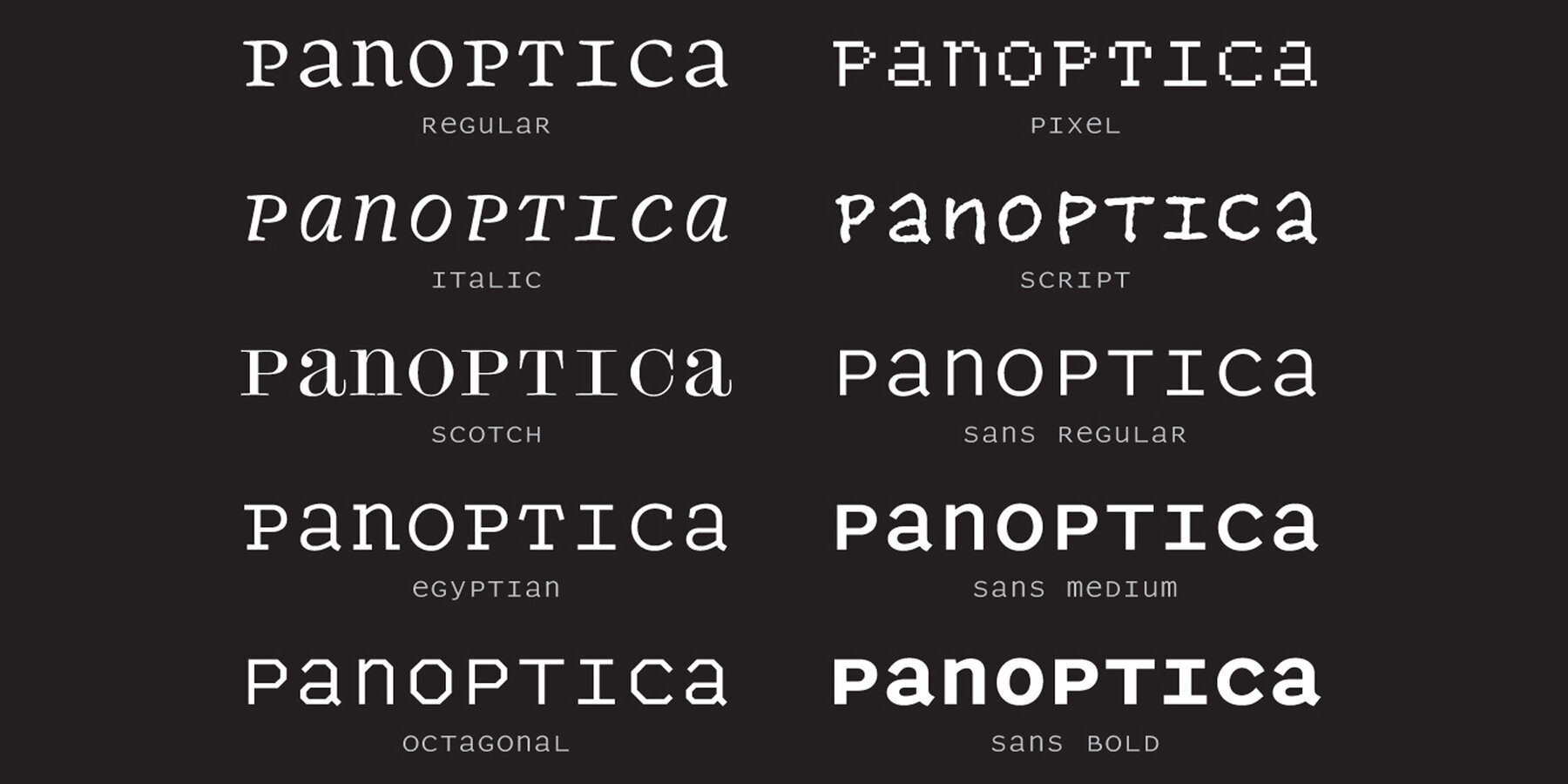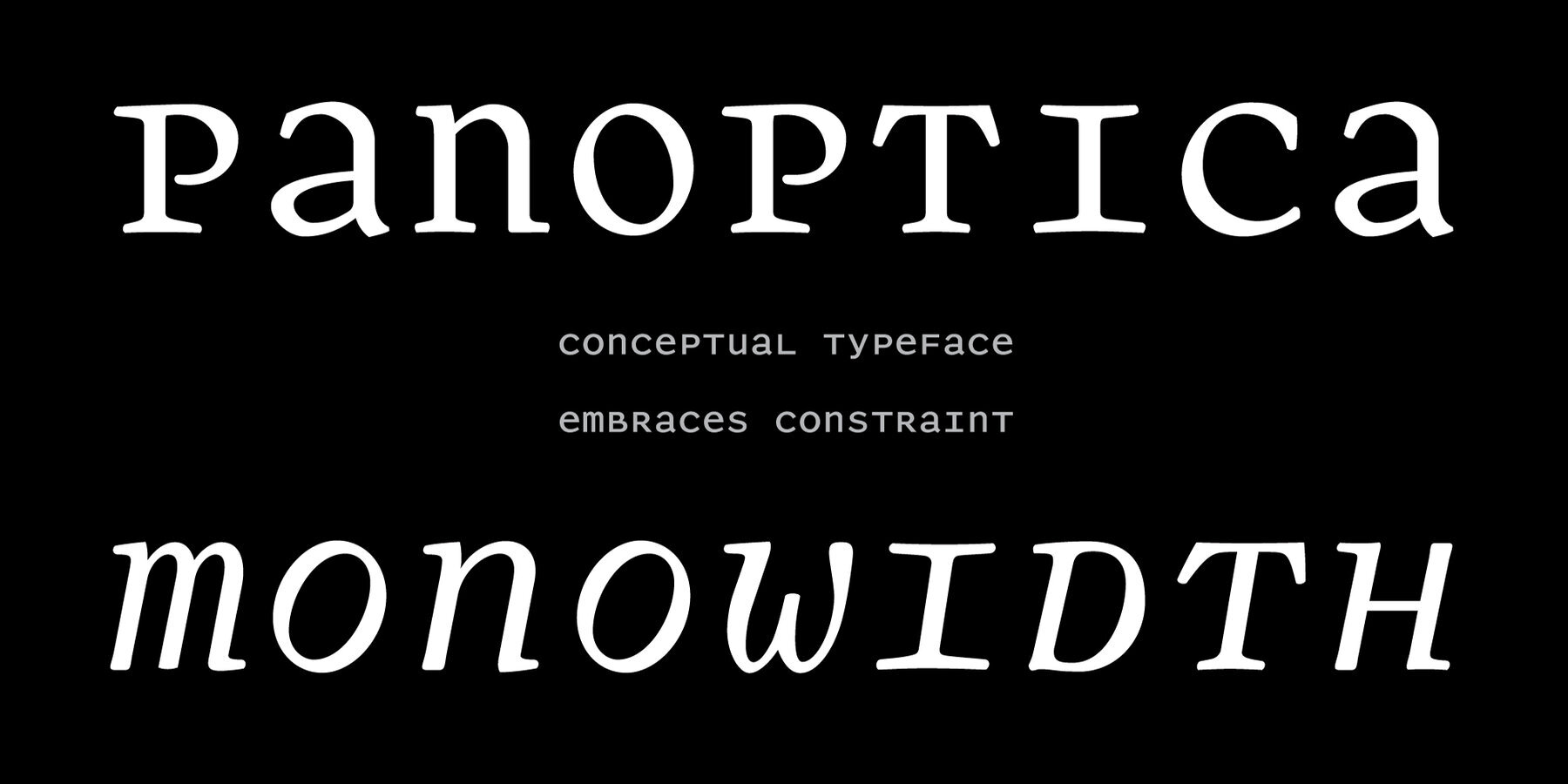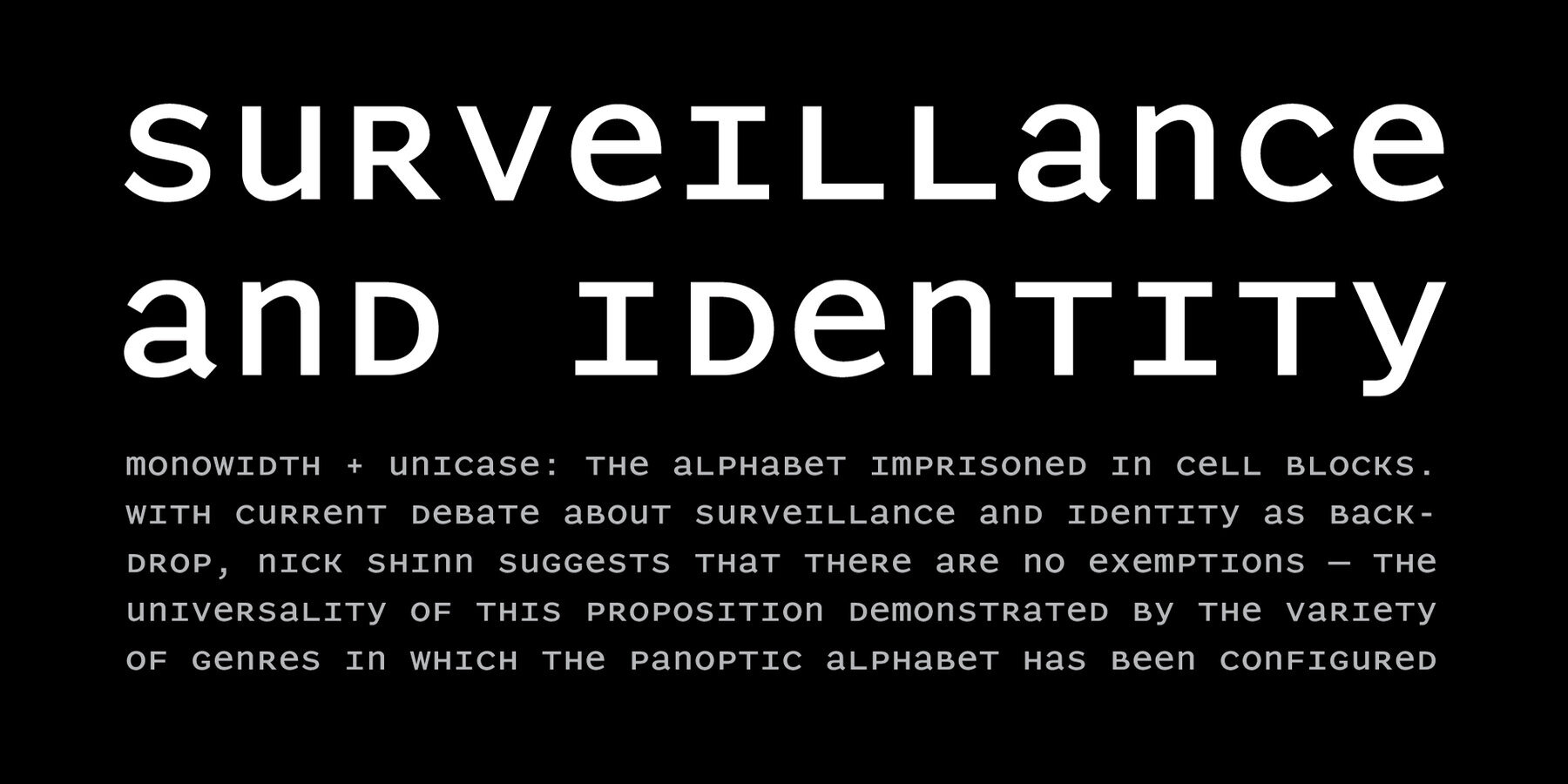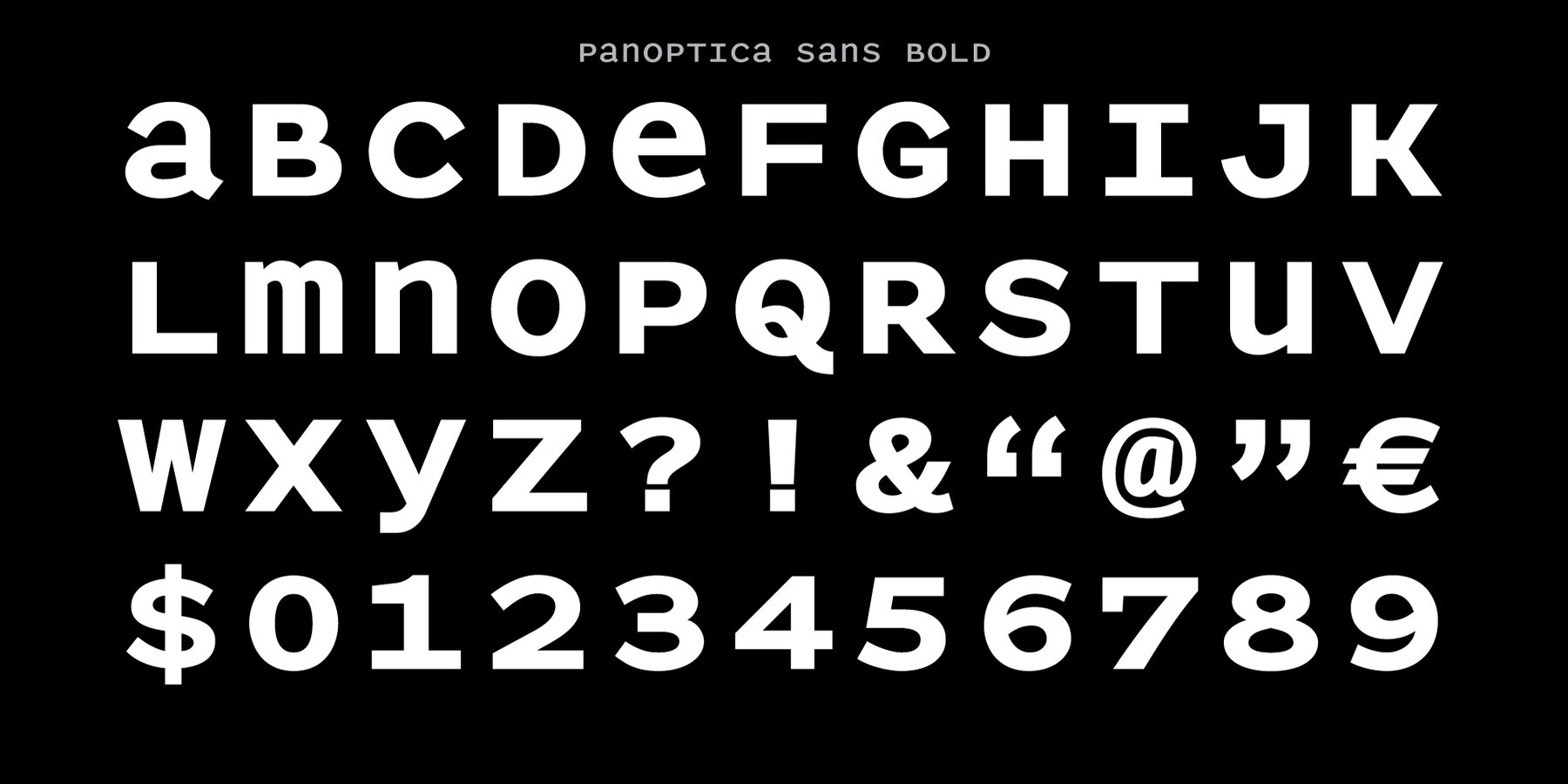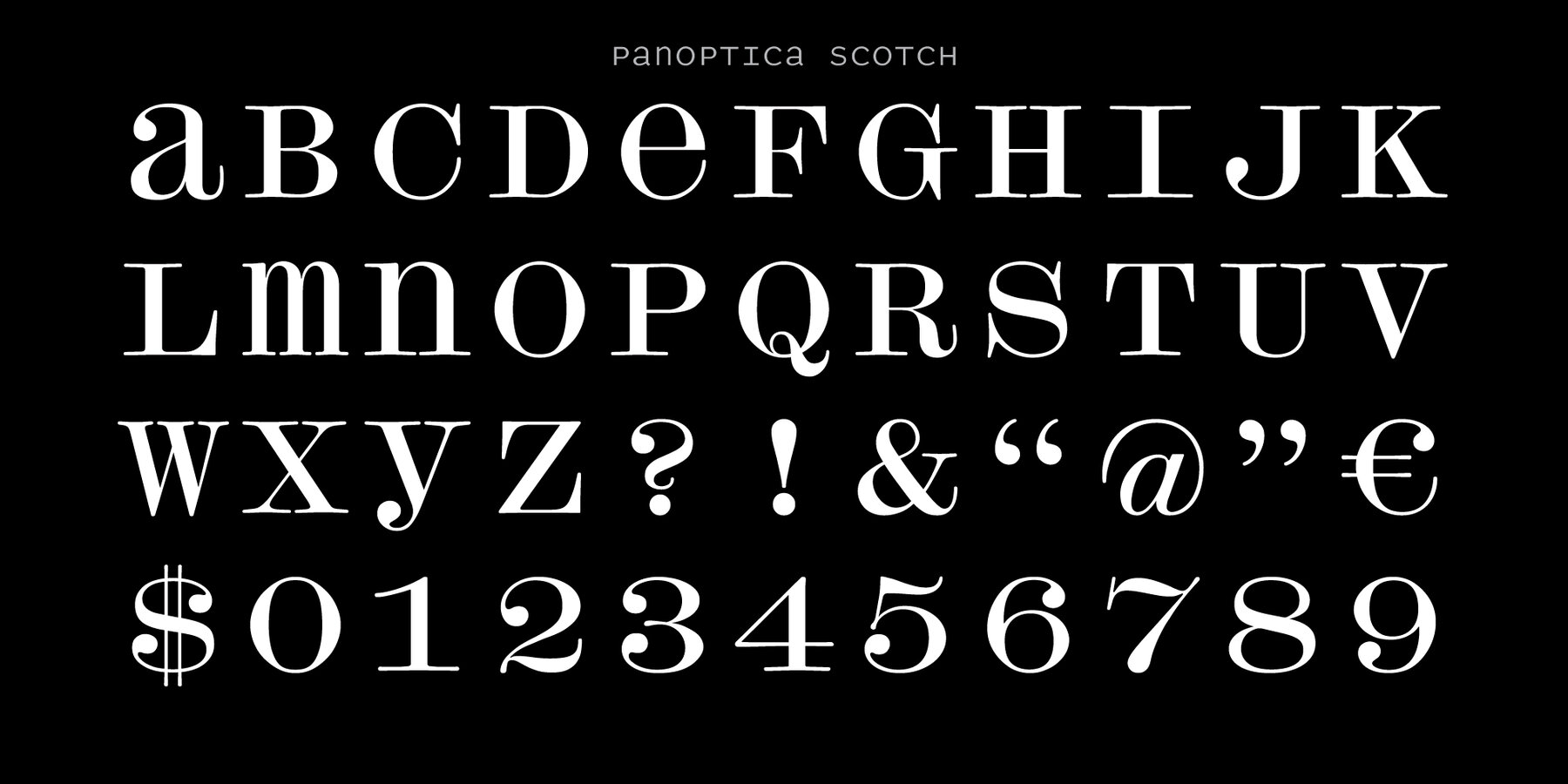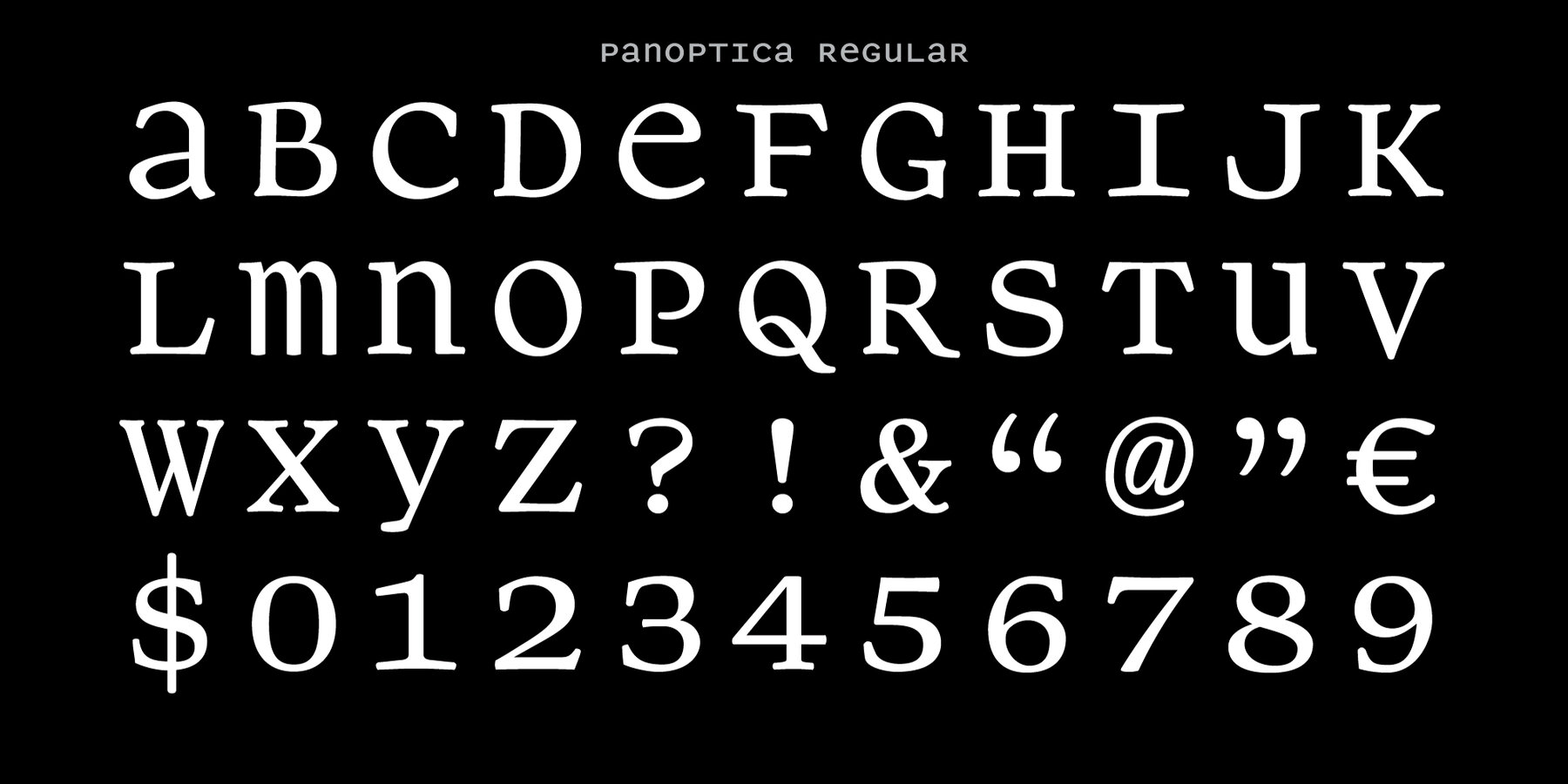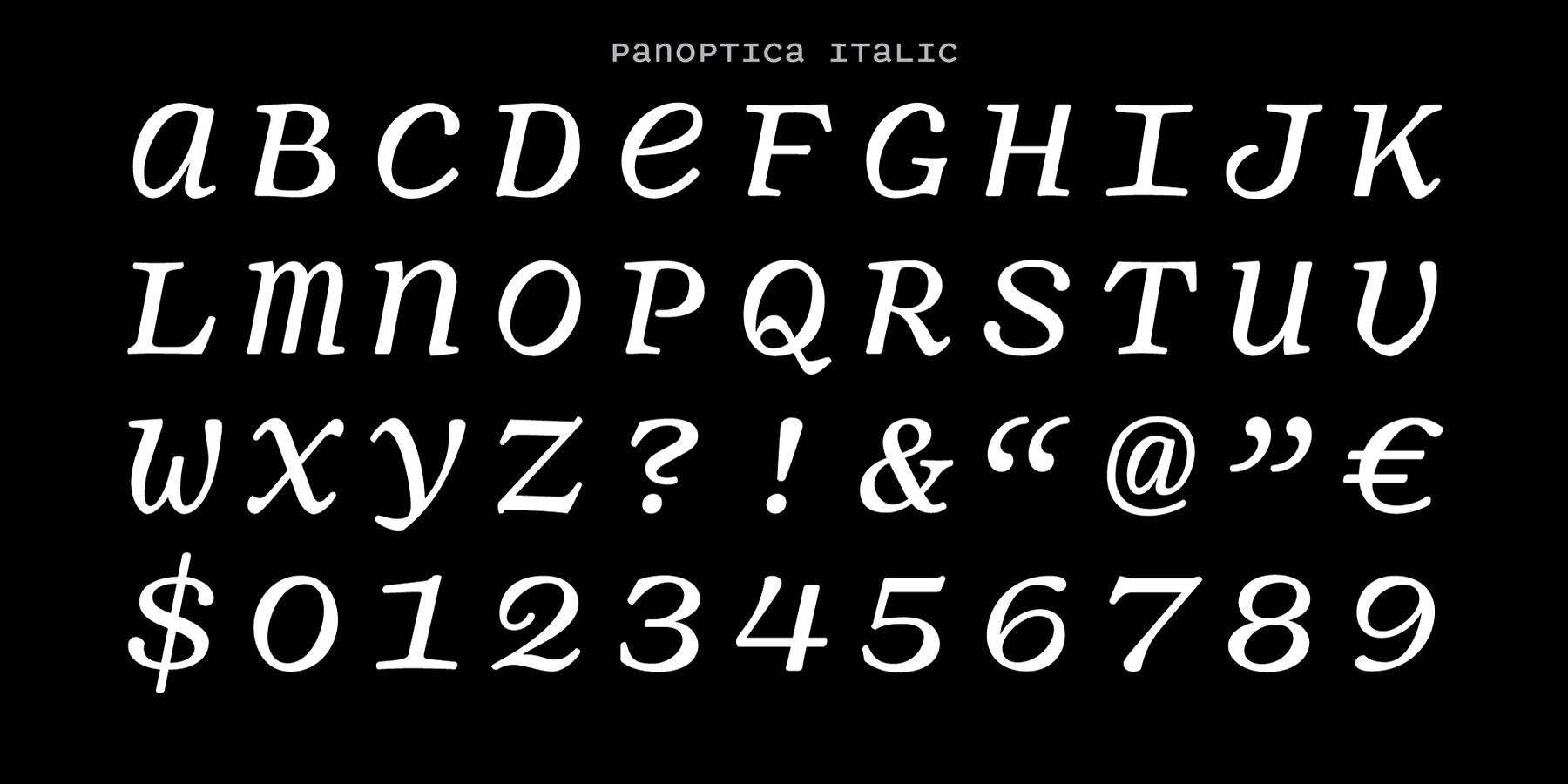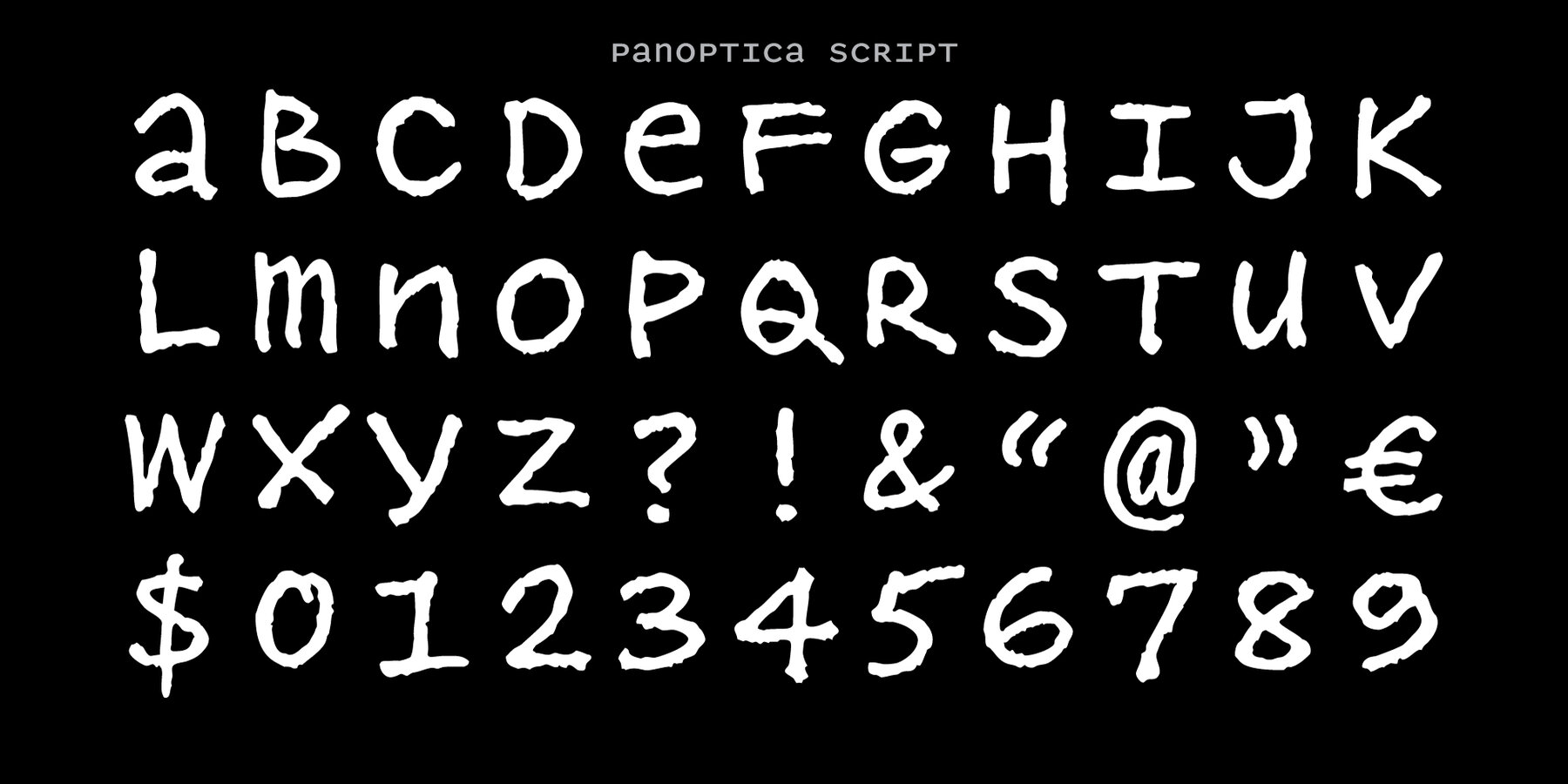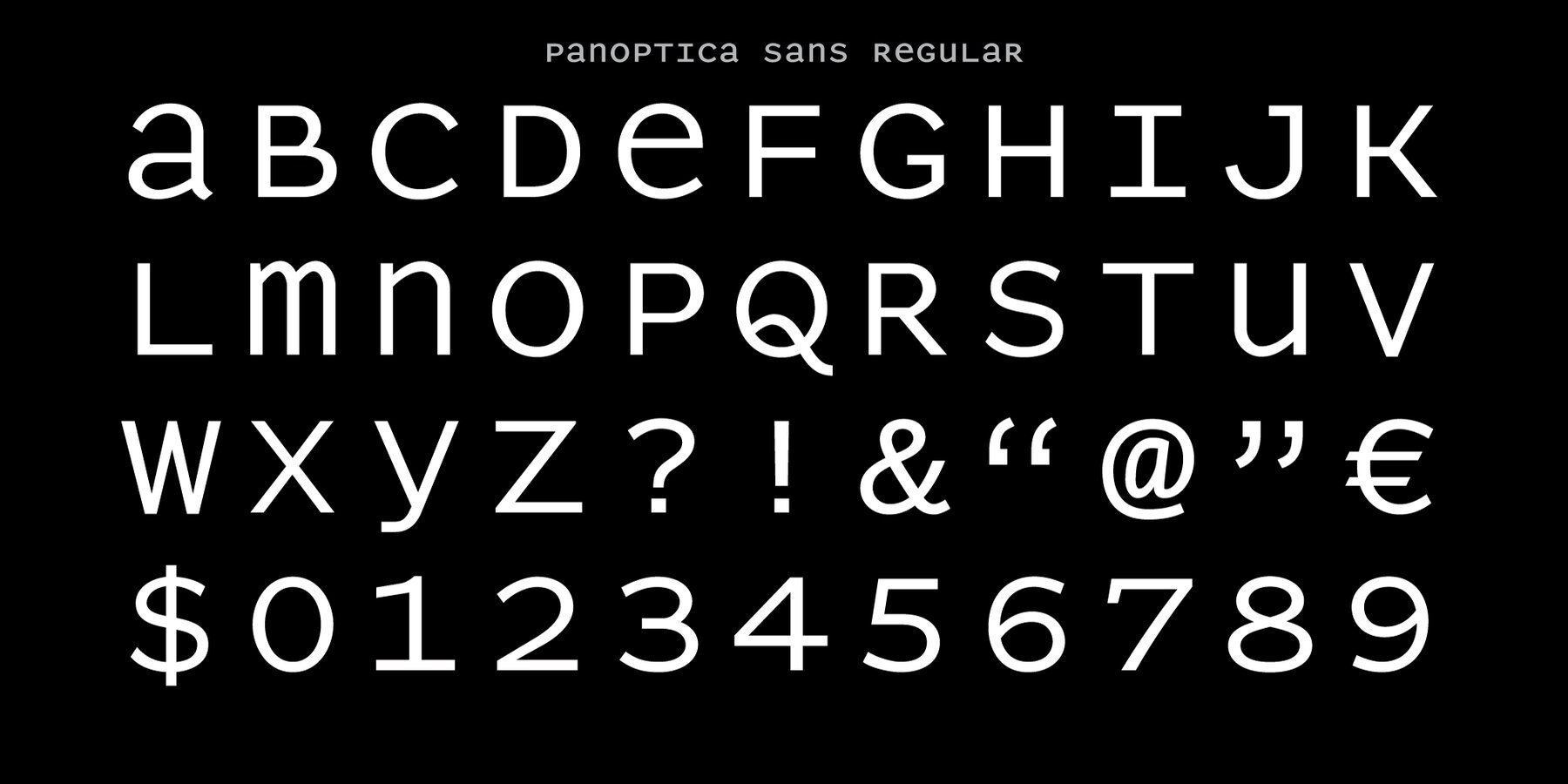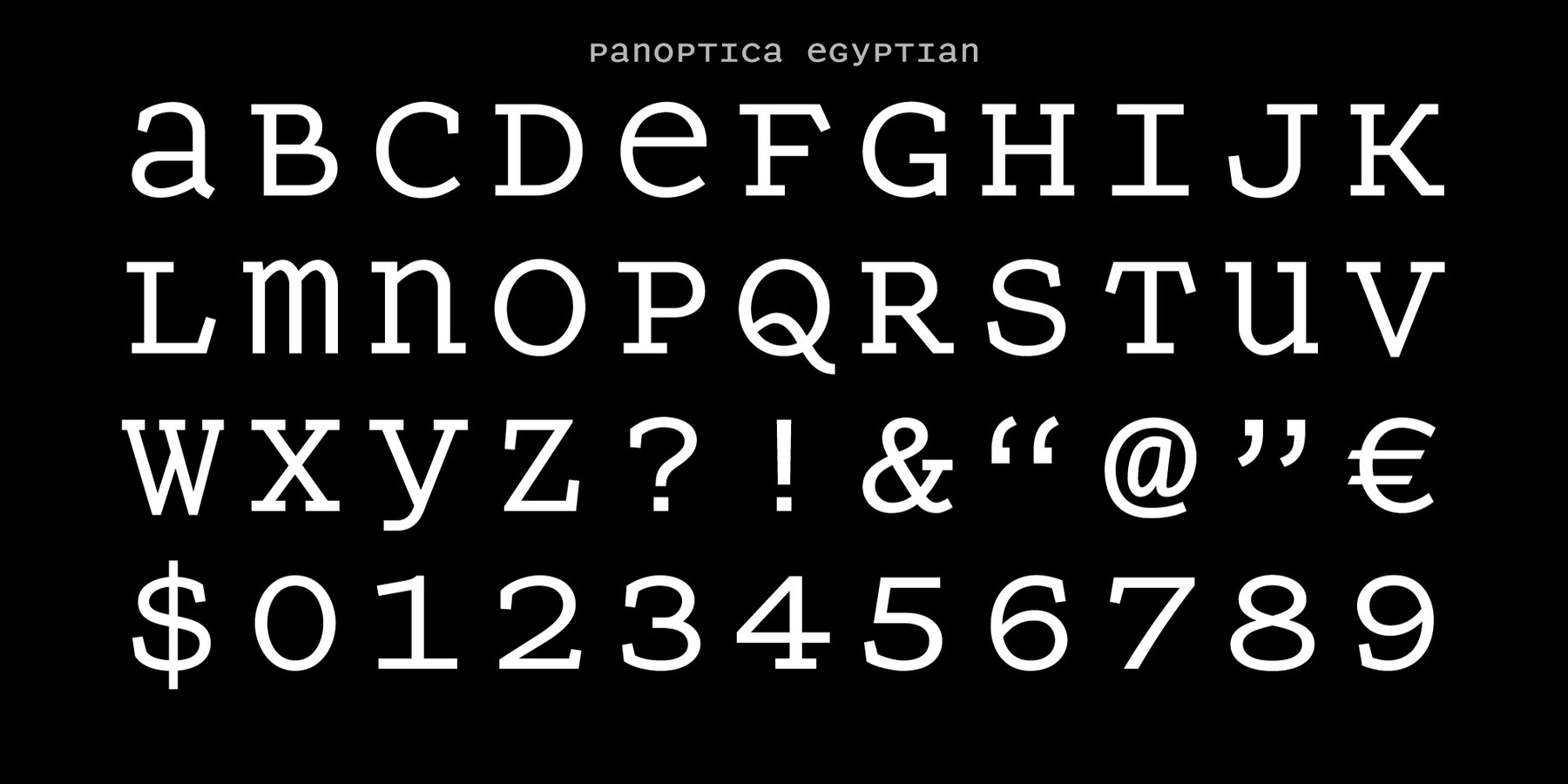
Panoptica Font
Monowidth, unicase: the alphabet imprisoned in cell blocks. With current concern over surveillance and identity as backdrop, Shinn suggests that there are no exemptions, the universality of this proposition indicated by the diversity of genres to which the Panoptic effect has been applied.